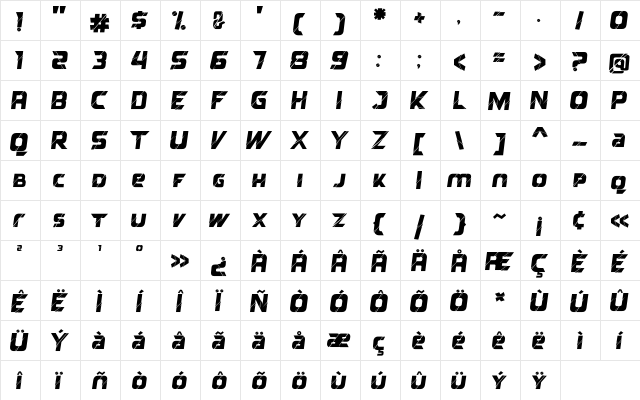
Reflected Regular
Design Context for Reflected Typeface
Reflected is a composed and adaptable typeface that performs quietly and consistently across a wide range of design contexts.